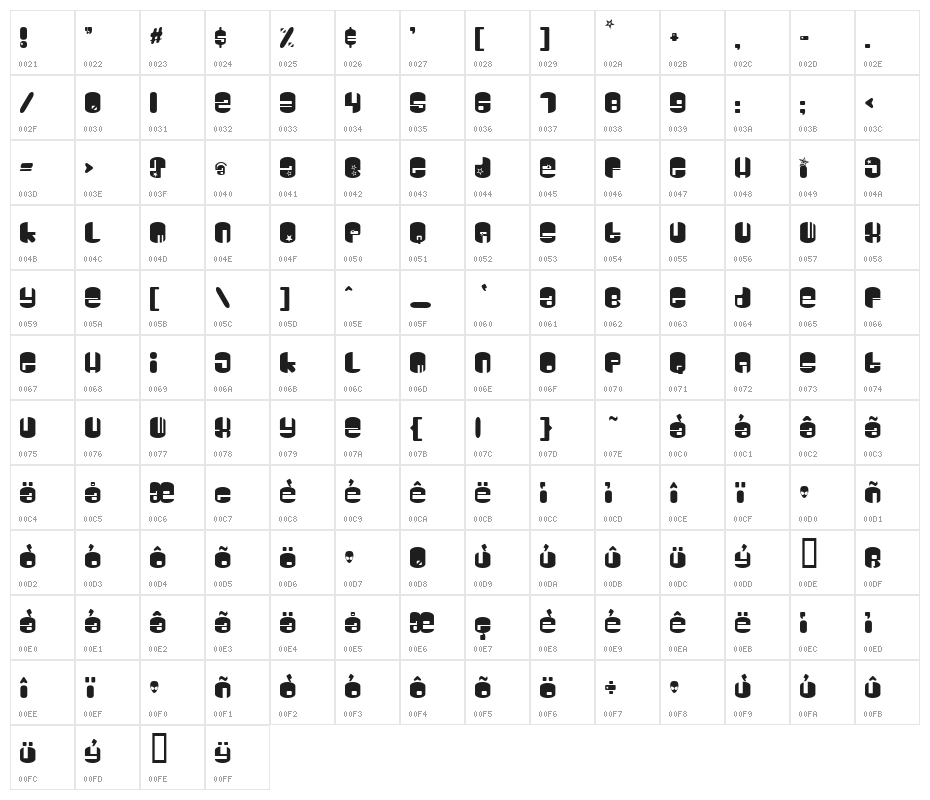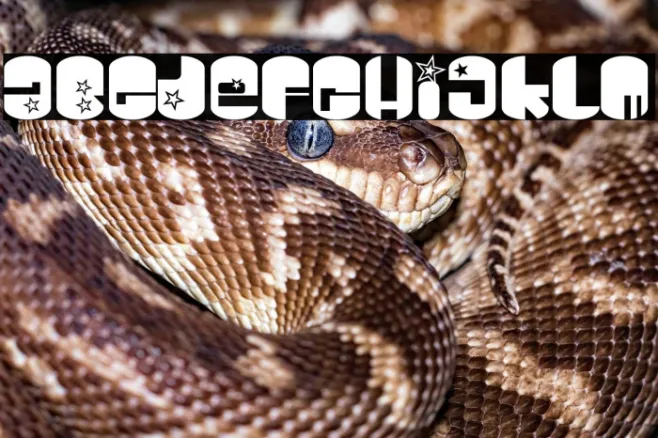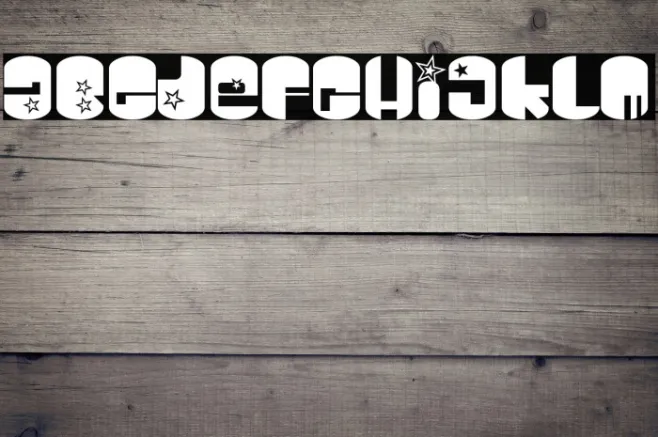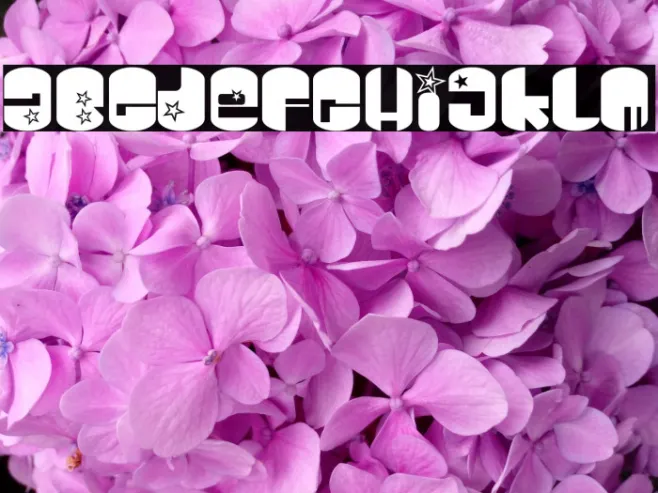
Galaxy Font
Galaxy Description
This font features a bold, futuristic design with a playful twist. Each character is crafted with a rounded, blocky style, incorporating star motifs and unique cutouts that add a whimsical, space-themed aesthetic. The letters are uniformly wide, creating a cohesive and visually striking appearance. The numbers and special characters follow the same design principles, ensuring consistency across all elements. This font's distinct style makes it ideal for projects that require a bold and imaginative touch.
| Overall Style | Futuristic, Playful |
| Proposed Projects | Ideal for sci-fi themed posters, children's book covers, video game graphics, and creative branding projects. |